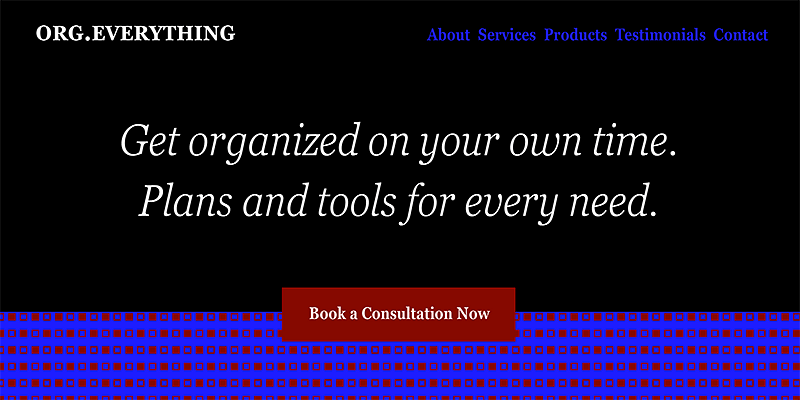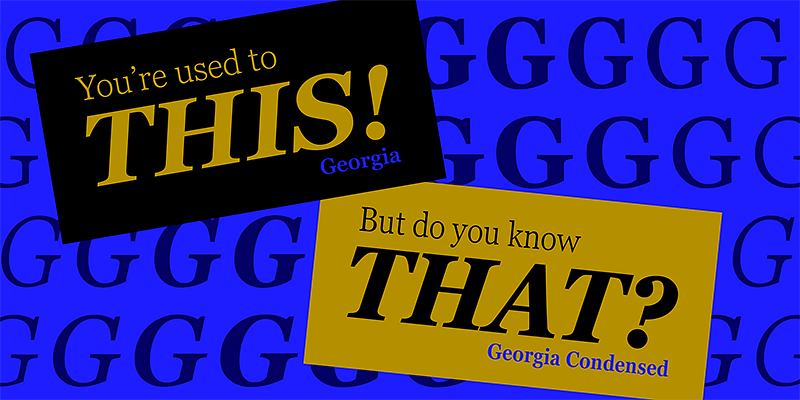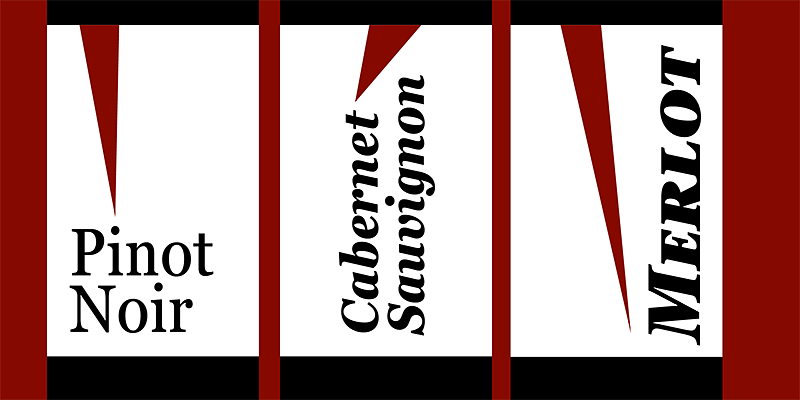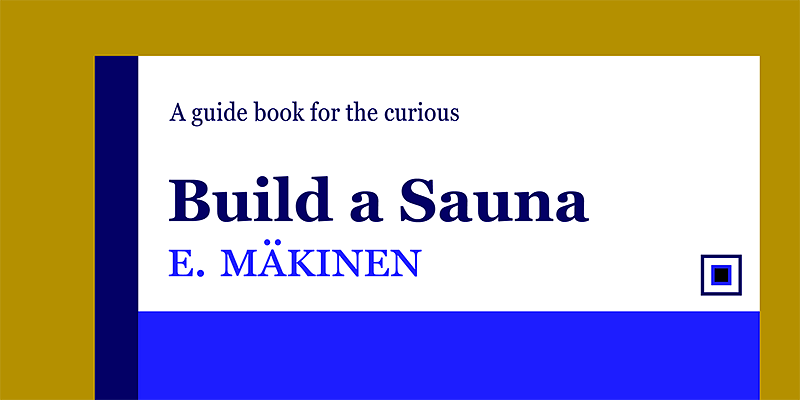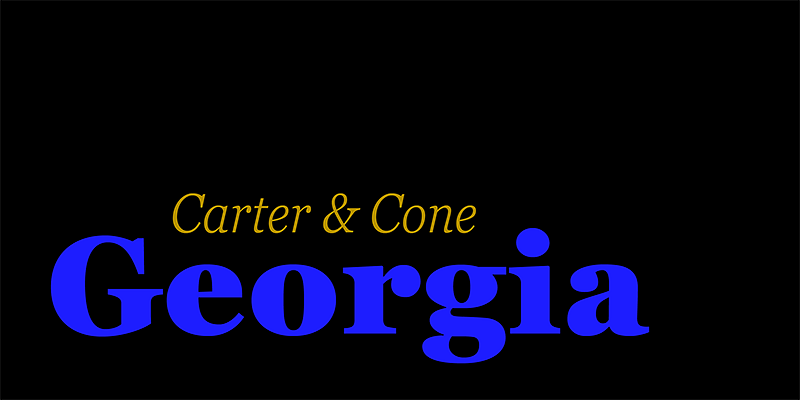
Georgia Pro Font
The Georgia Pro Font is perfect for professional publications, academic documents, scholarly articles, literary magazines, prestigious book publishing, formal business reports, educational materials, sophisticated editorial layouts, legal documentation, and distinguished institutional communications.
What makes the Georgia Pro Font so exciting is its masterful combination of classical serif elegance with enhanced digital optimization that creates exceptional readability and timeless sophistication across all professional applications. This distinguished typeface features refined letterforms, optimal character spacing, and classical proportions that establish uncompromising quality perfect for projects demanding the highest standards of typographic excellence and scholarly credibility. The font's professional character and academic authority make it an exceptional choice for publishers, educators, and institutions seeking to communicate knowledge, tradition, and intellectual excellence with authentic scholarly appeal.
The Georgia Pro Font family includes comprehensive professional options, featuring multiple weights from Light to Bold, condensed variations, and complete italic sets. Each variation maintains the signature scholarly appeal while offering different levels of visual presence and academic versatility, providing designers with complete control for creating sophisticated publication hierarchies and professional document systems.
The sophisticated design characteristics of Georgia Pro Font demonstrate expert classical typography craftsmanship, with each character optimized for perfect legibility, scholarly appearance, and visual harmony across all academic contexts. The font's extensive character set includes comprehensive international language support, advanced typographic features, academic punctuation, and scholarly symbols, ensuring seamless integration into global educational workflows and professional publishing systems.
Expertly optimized for both digital and print academic applications, this remarkable font maintains flawless clarity and scholarly presence across all media formats and educational requirements. From large-scale institutional signage to detailed academic texts, Georgia Pro Font performs exceptionally while preserving its distinctive classical character and professional academic excellence.